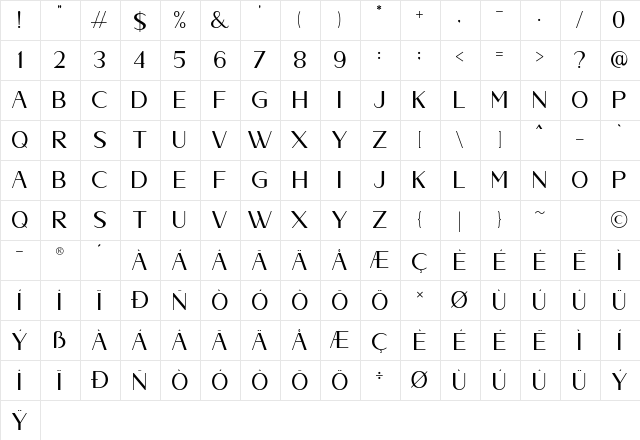
Abenda Regular
Design Context for Abenda Typeface
Abenda offers clean, dependable letterforms without strong stylistic allegiance, making it a practical choice for designers who need flexibility.